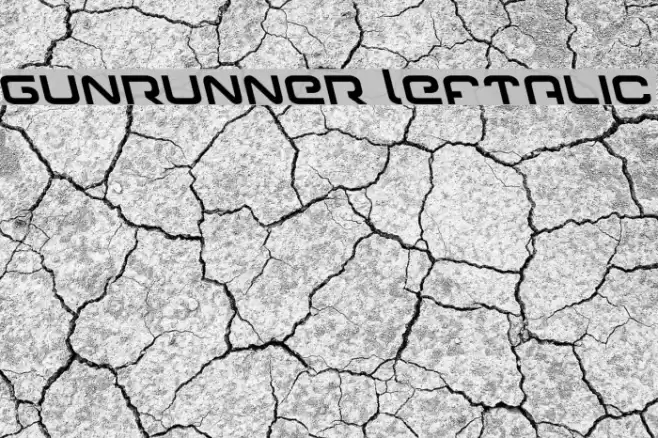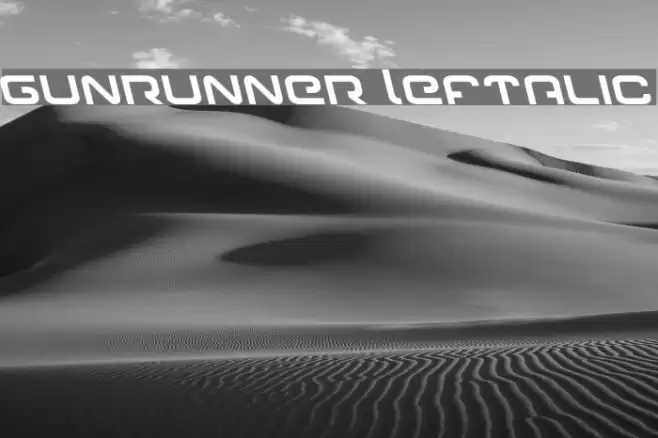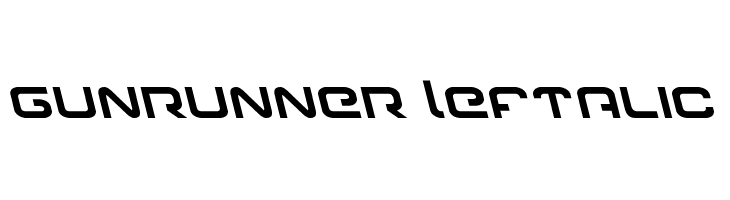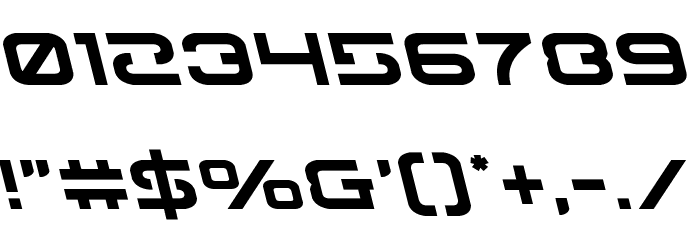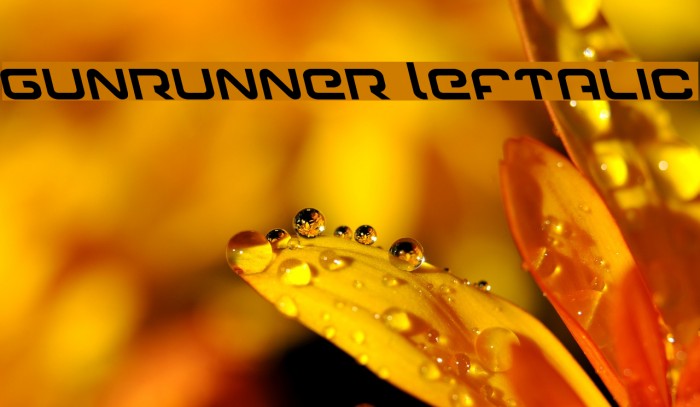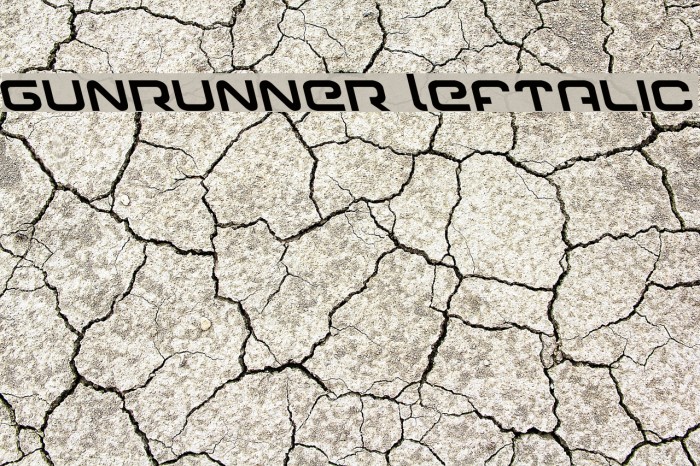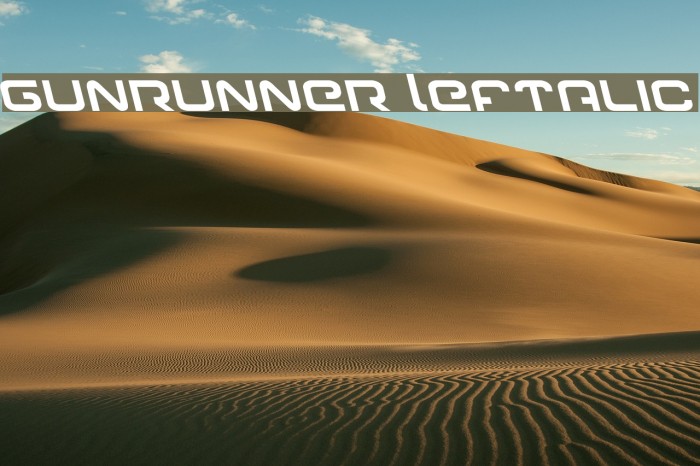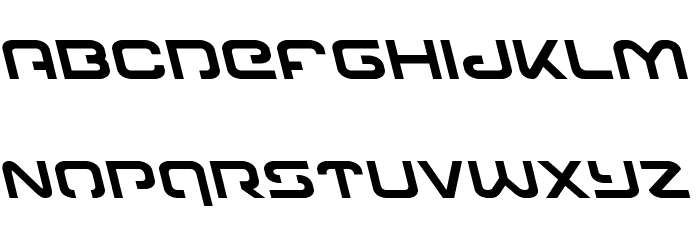
Gunrunner Leftalic Font
Gunrunner Leftalic Description
This font features a futuristic and angular design, characterized by its sharp edges and geometric shapes. The letters are slightly slanted, giving a sense of motion and dynamism. The uppercase and lowercase letters maintain a consistent style, with a unique cut-out effect that adds to its modern appeal. Numbers and special characters follow the same design principles, ensuring uniformity across all glyphs. The font's bold appearance makes it suitable for attention-grabbing headlines and titles.
A futuristic, angular font with a dynamic, slanted style from Sci-fi fonts.
- Proposed Projects: Ideal for sci-fi themed projects, video game titles, tech branding, and modern posters.